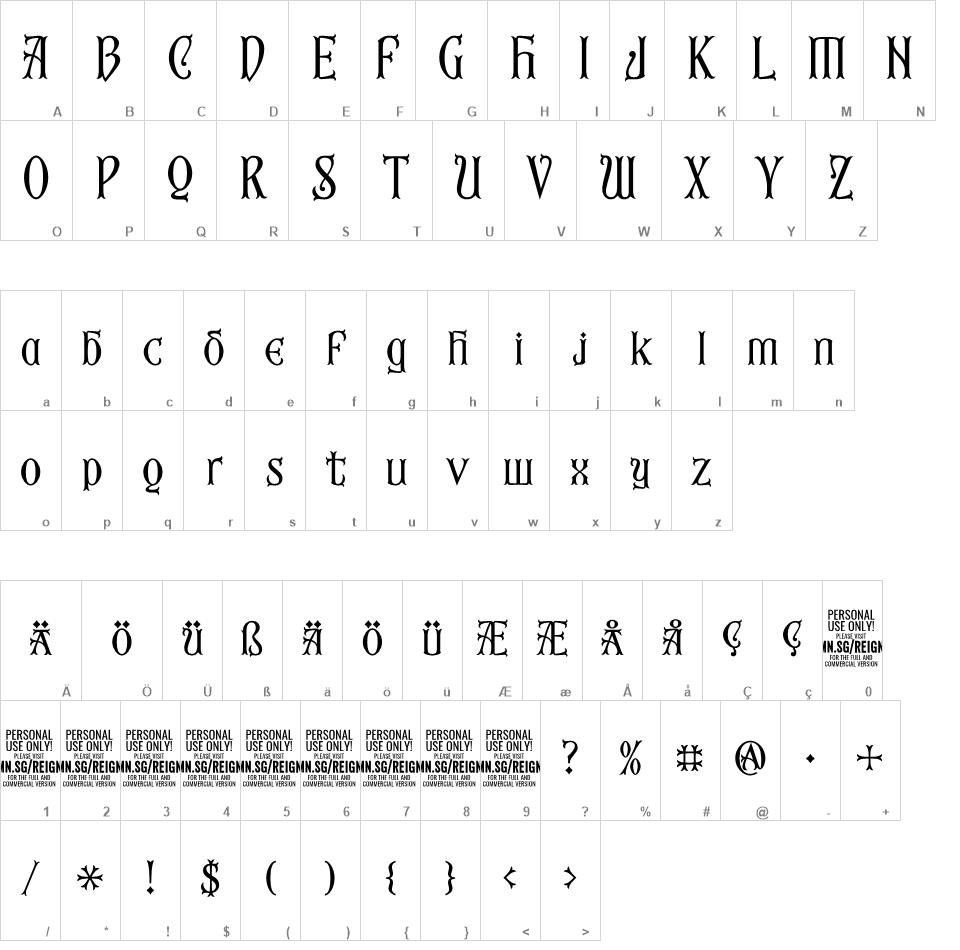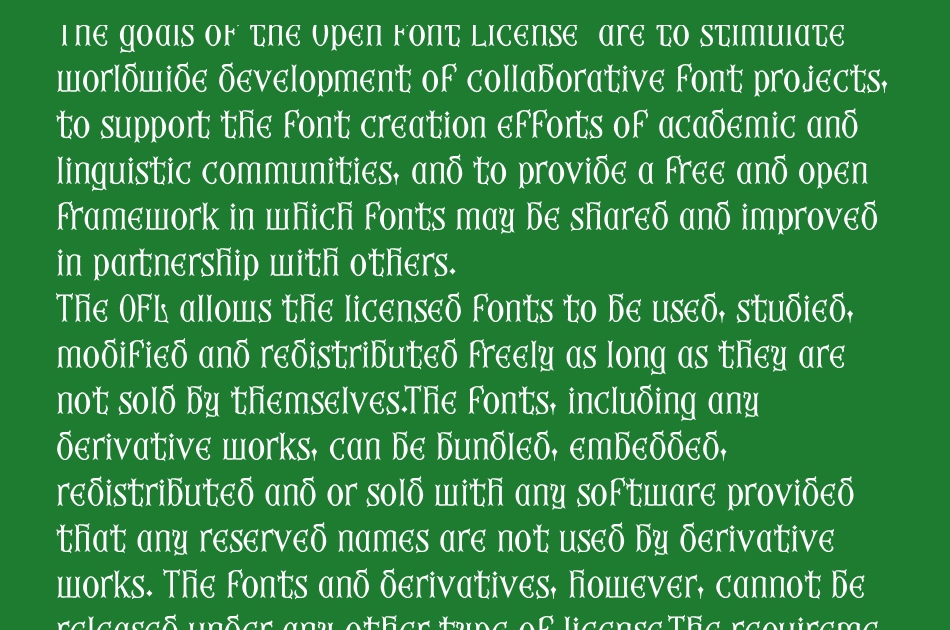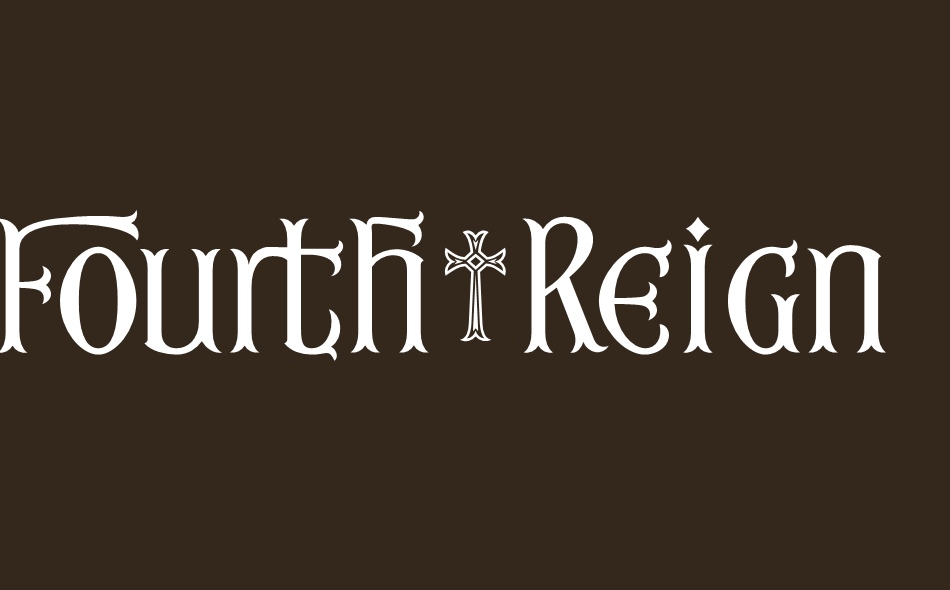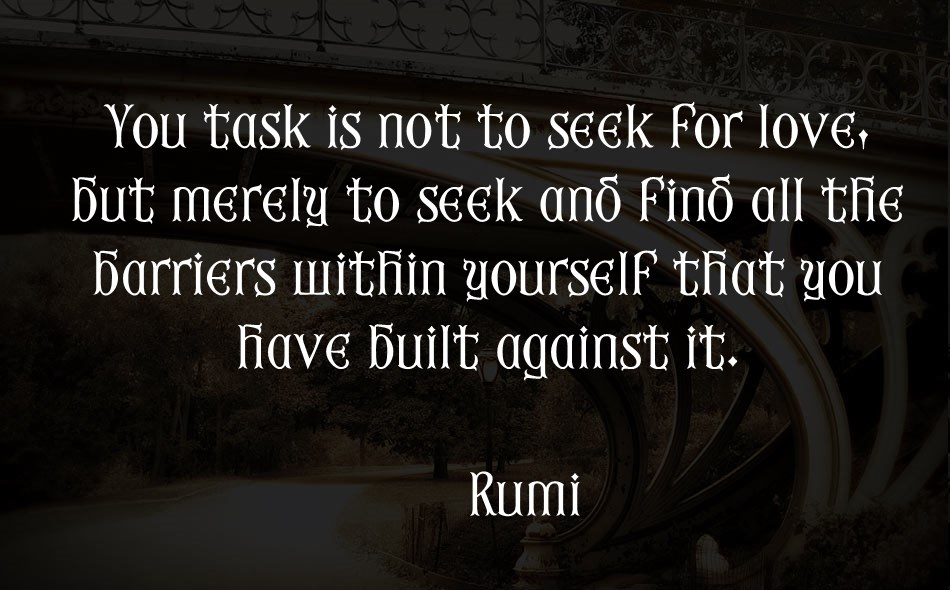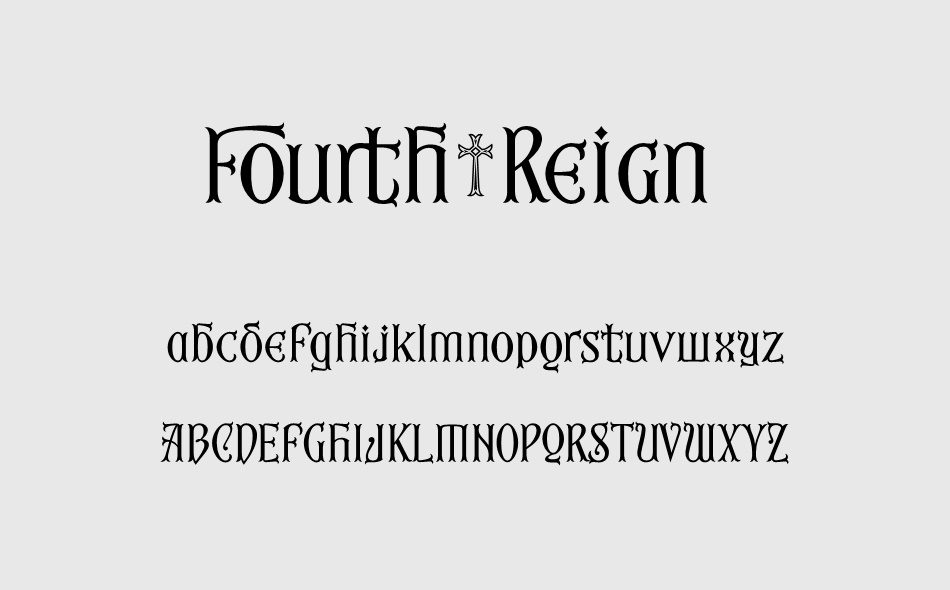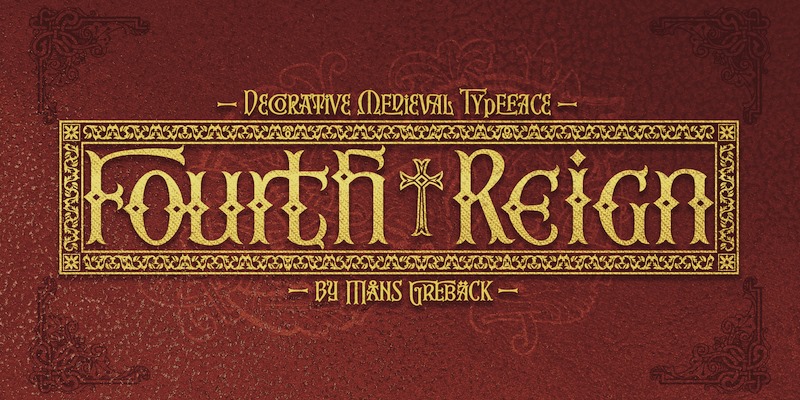
Fourth Reign font
Dragon, Horse, Crown, Sword, Eagle, Deer, Cross, Anchor are some of the logos.
Fourth Reign is a royal medieval typeface.
With diamonds, borders and ornaments, this decorative typeface brings us to glorious worlds in the golden times of epic knight sagas. Fourth Reign is the typeface of queens and kings.
Use it for a Middle Ages game, a fantasy headline, or as a logotype for anything of historical theme.
The Fourth Reign family consists of four styles: The regular Plain style, and the beautiful Borders, Diamonds and Combo styles.
The font is built with advanced OpenType functionality and has a guaranteed top-notch quality, containing stylistic and contextual alternates, ligatures and more features; all to give you full control and customizability. It has extensive lingual support, covering Greek and Cyrillic, as well as all Latin-based languages, from North Europe to South Africa, from America to South-East Asia. It contains all characters and symbols you'll ever need, including all punctuation and numbers.